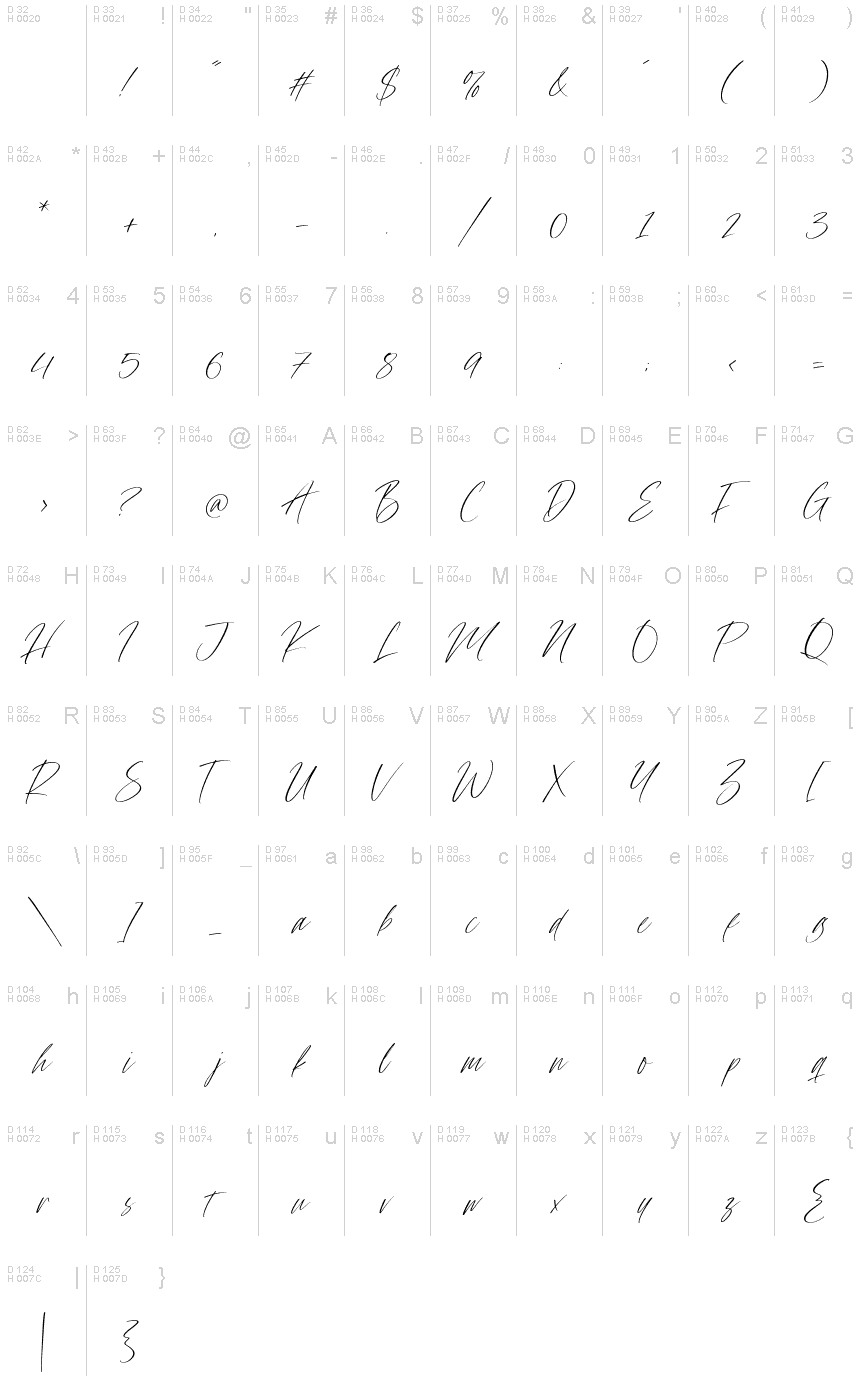
Valley Country
Valley Country, a captivating handwritten font by Balpirick Studio, brings a touch of whimsy to any project. With its light weight, this font exudes elegance and grace, making it perfect for romantic wedding invitations and delicate stationery. Its playful strokes and organic flow also lend themselves well to children's book illustrations and cheerful branding projects. Whether you're crafting a heartfelt love letter or designing an enchanting logo, Valley Country effortlessly adds a touch of magic to your creations. Embrace the charm of this delightful handwritten typeface and let your imagination soar.